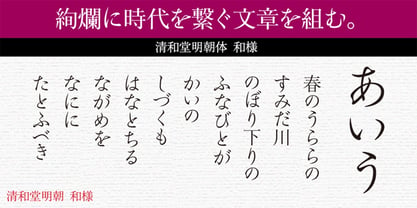
Seiwa Min Wayou Std
by Seiwado
After the transition from metal type to phototypesetting, characters could be designed directly by brush writing, giving rise to elegant and delicate forms. The kanji of "Seiwado Mincho" take this further, adjusted to an optimal snugness that previous Mincho typefaces did not possess, and blending the attractive qualities of traditional text Mincho typefaces to create a dignified kanji for body text. Introducing, for the first time, cursive and Japanese-style kana integrated with Mincho typeface. There was no consideration for metal type. Inspired by the great Edo period graphic designer Ogata Korin, I have fully incorporated the form of the iris flower. It expresses the refined and graceful Japanese aesthetic.
Seiwado Mincho font places great importance on the flow of characters. It was created with the constant image of the special atmosphere that arises between the work and the reader.